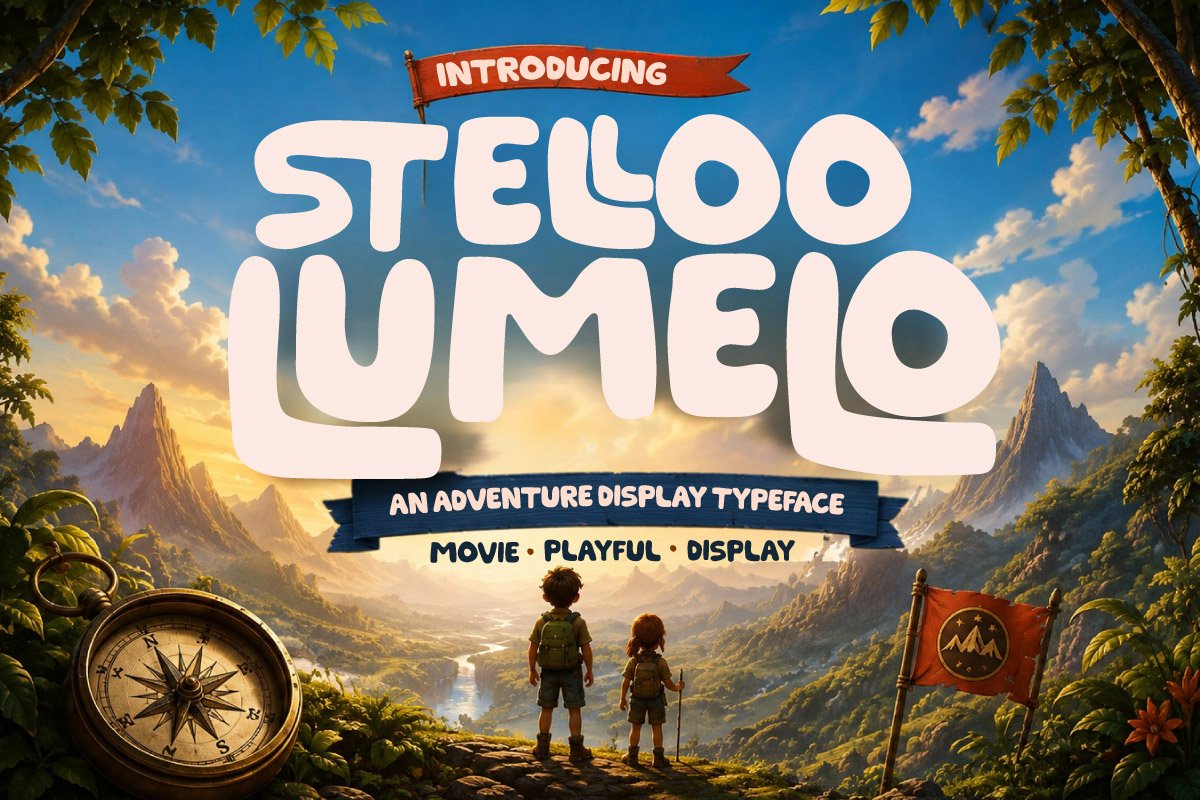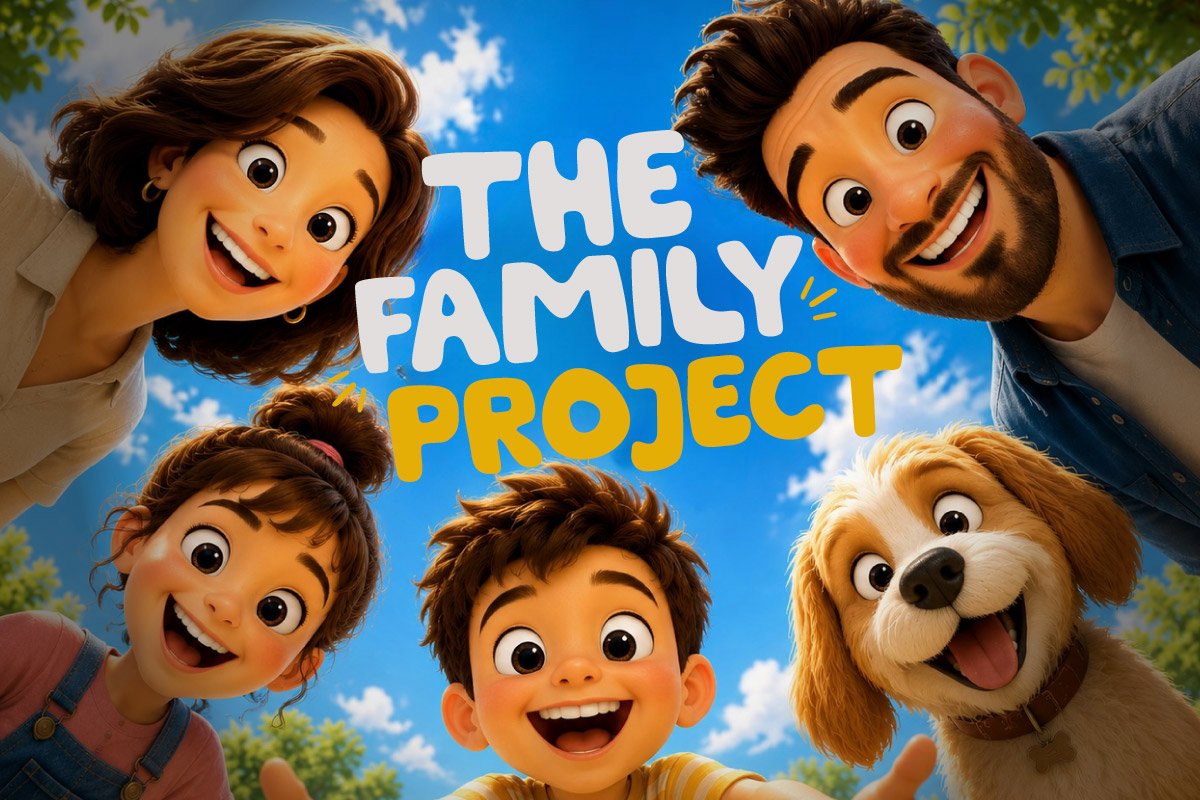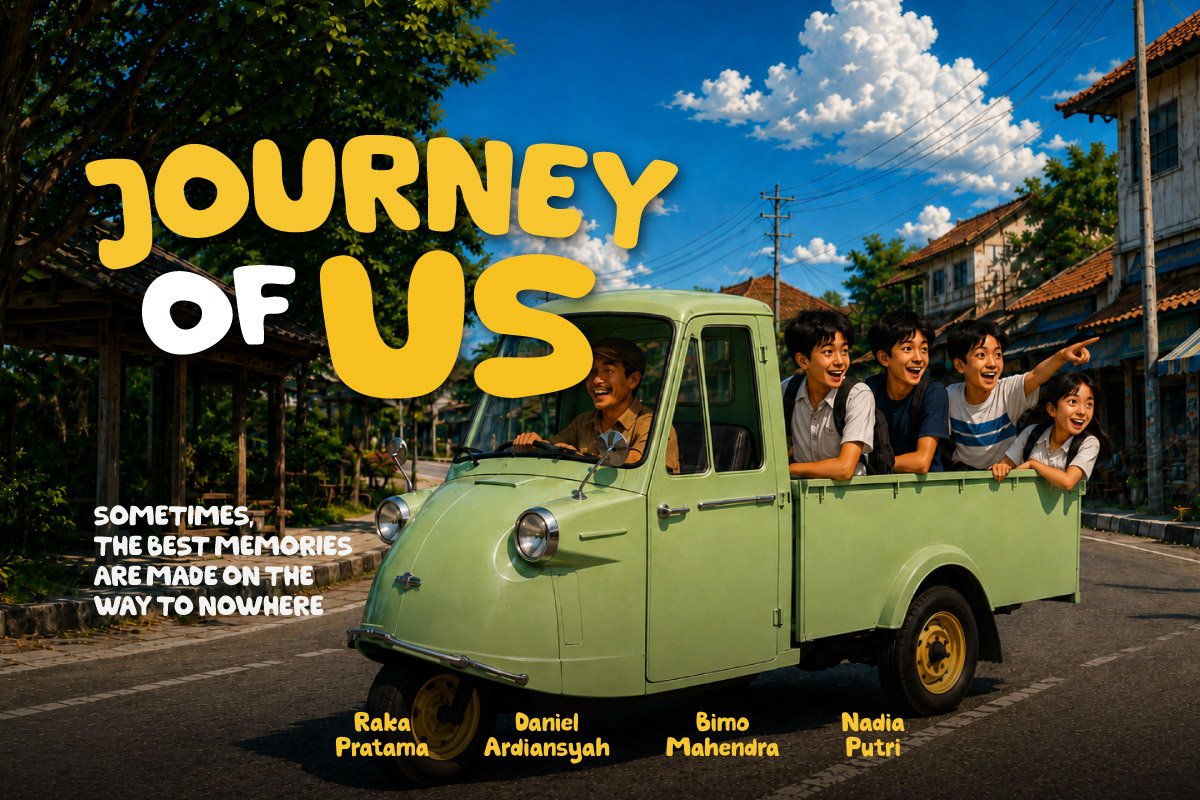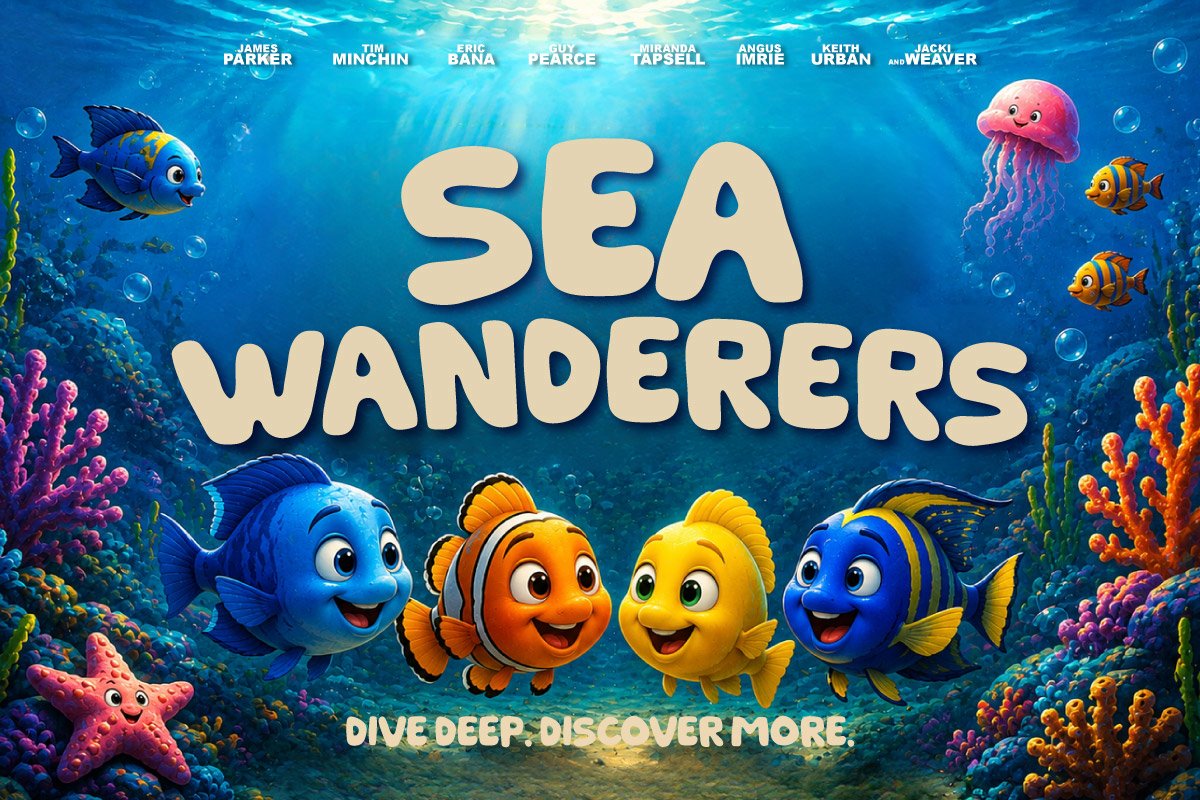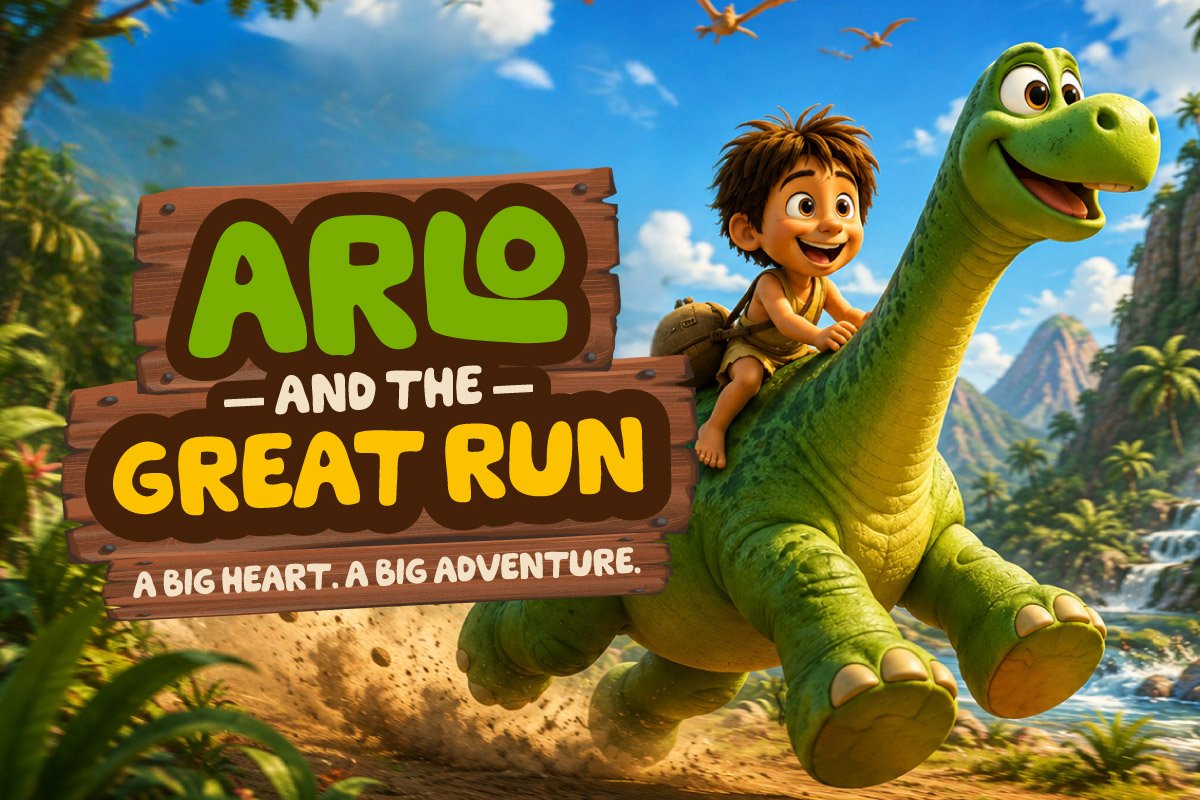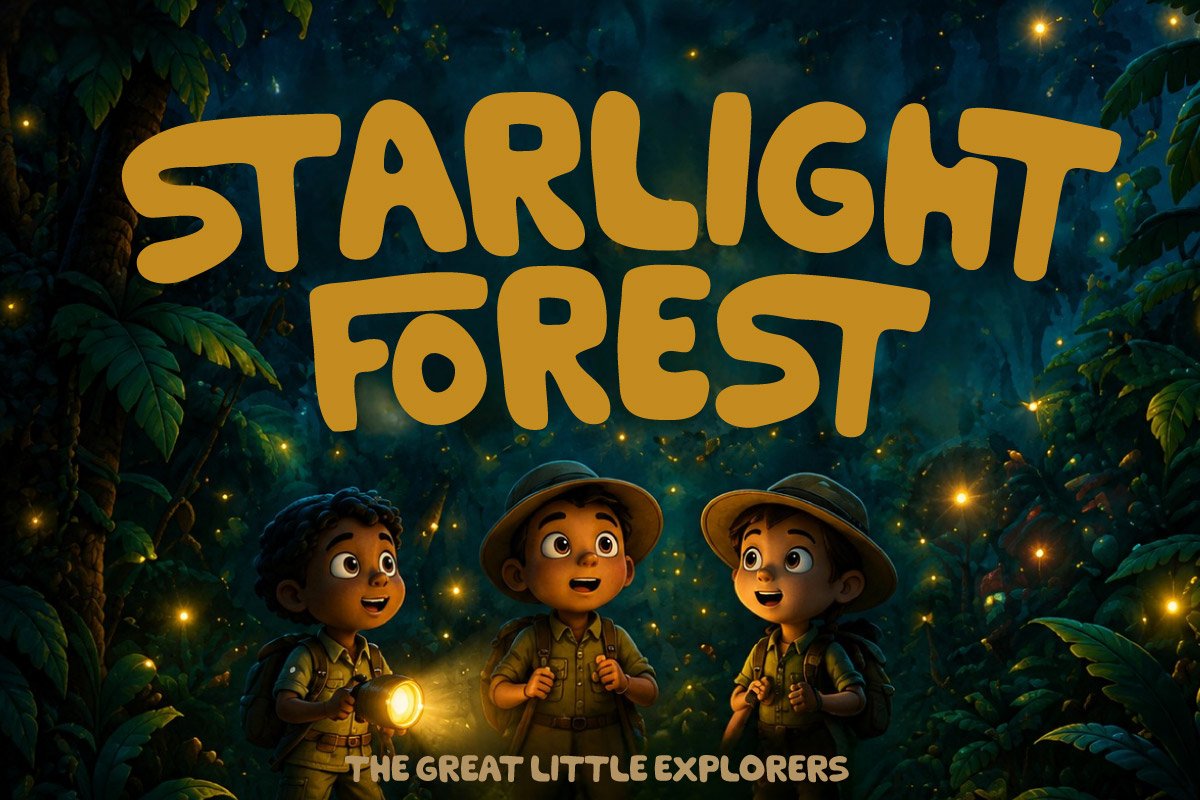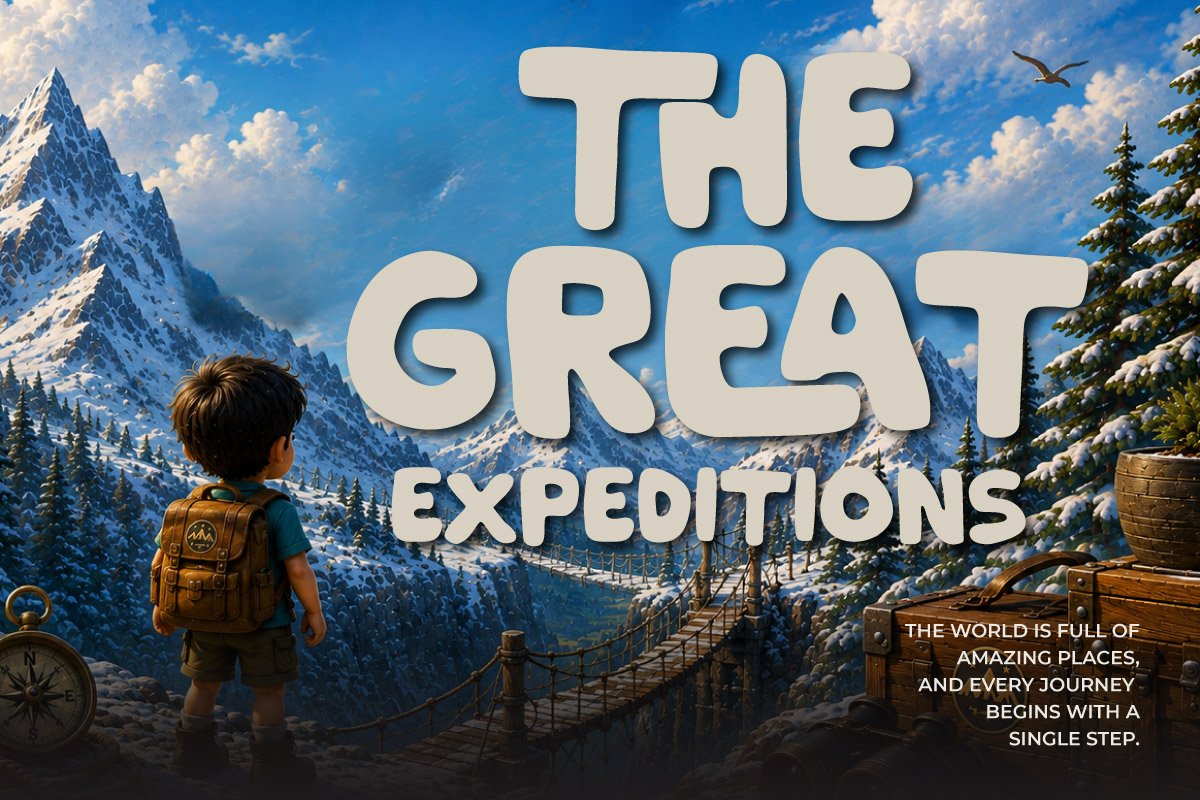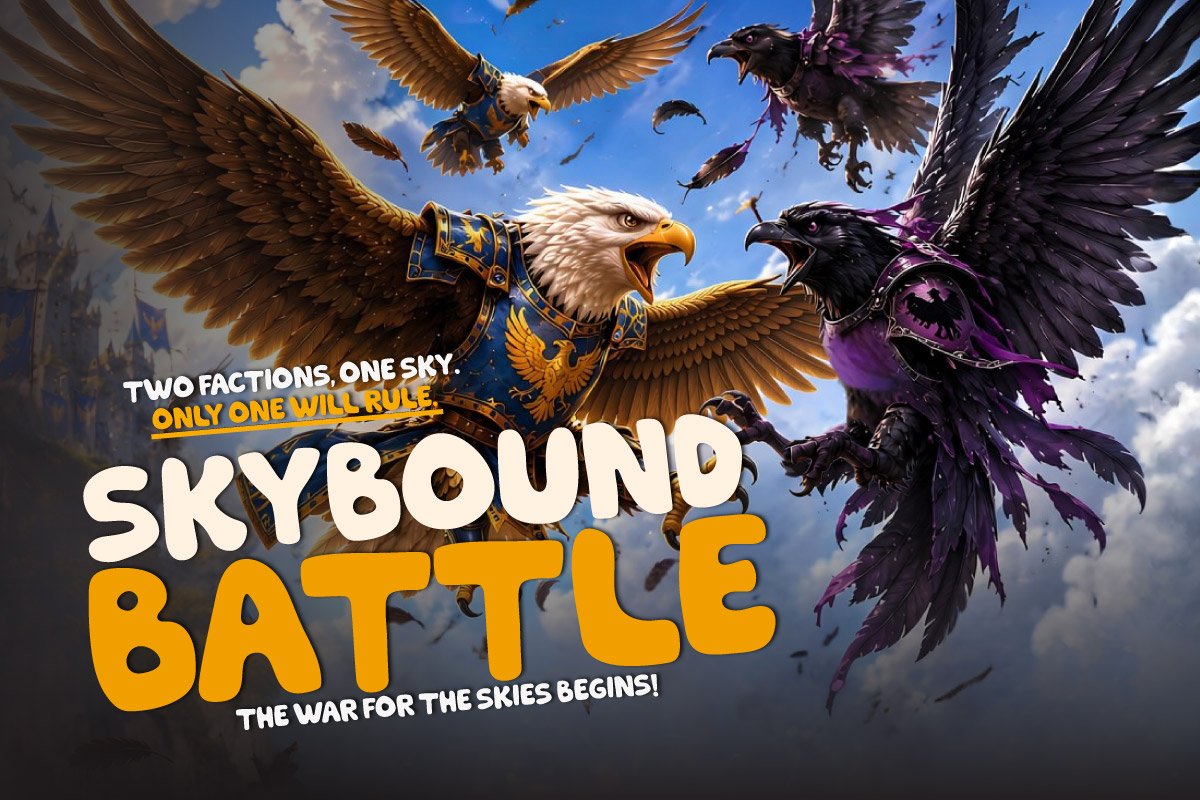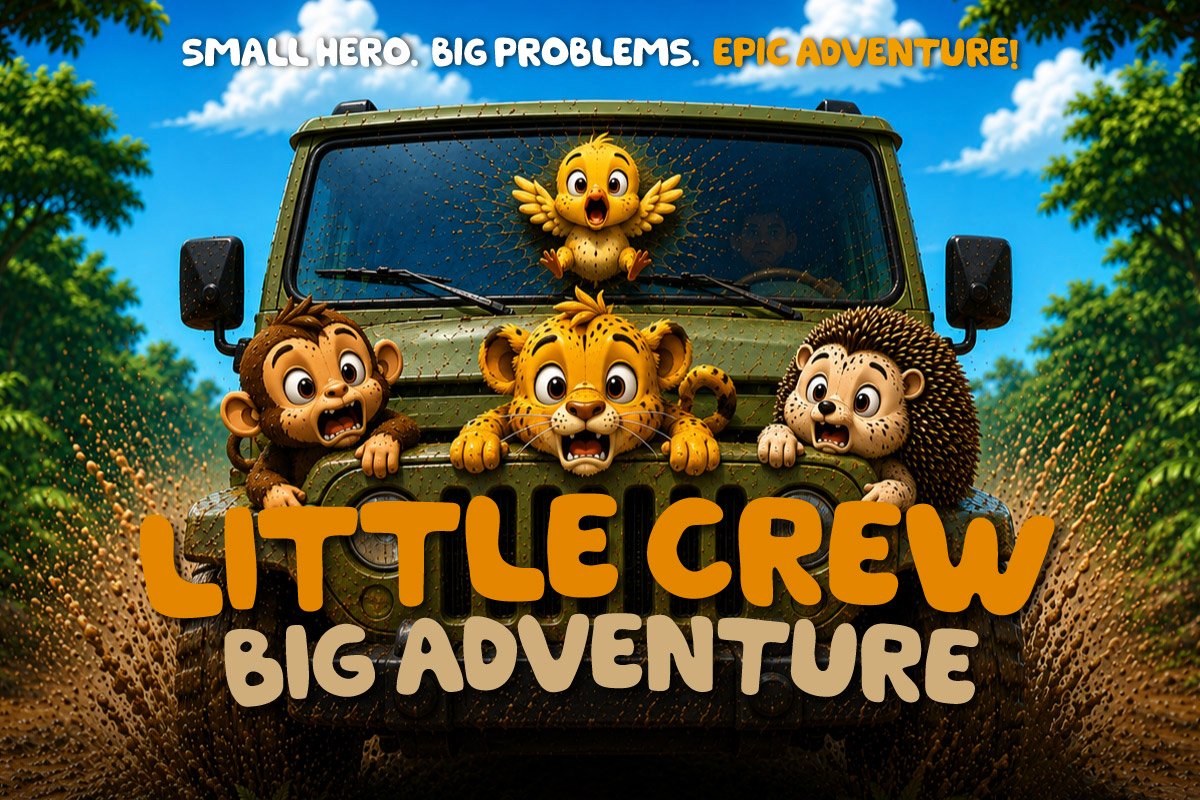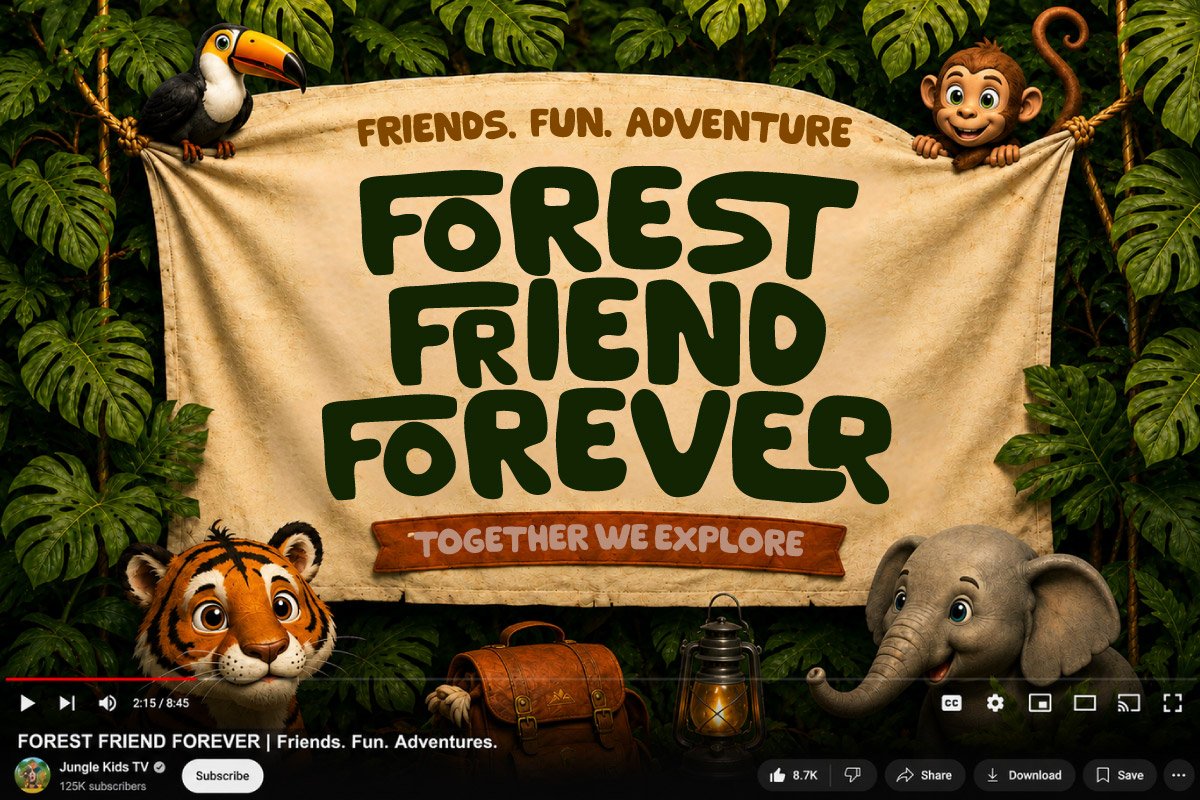
- Stelloo Lumelo – Movie Playful Display
Stelloo Lumelo – Movie Playful Display is a bold and playful display font designed to bring a fun, adventurous, and imaginative feeling to children’s entertainment and cinematic visuals. Its chunky, rounded, hand-drawn letterforms create a friendly yet powerful appearance that instantly stands out in titles, headlines, posters, and promotional artwork.
This font is perfect for children’s adventure movies, animated films, travel documentaries, nature educational content, kids entertainment, movie posters, and big-screen promotions. Stelloo Lumelo works beautifully for movie titles, posters, YouTube thumbnails, children’s book covers, promotional campaigns, merchandise, packaging, and adventure-themed branding projects.
With its expressive and friendly personality, Stelloo Lumelo adds a fun, happy, playful, adventurous, and cinematic touch to creative projects. It is an excellent choice for designers, filmmakers, creative studios, content creators, and children’s brands looking for a unique display typeface that makes titles memorable and visually engaging.